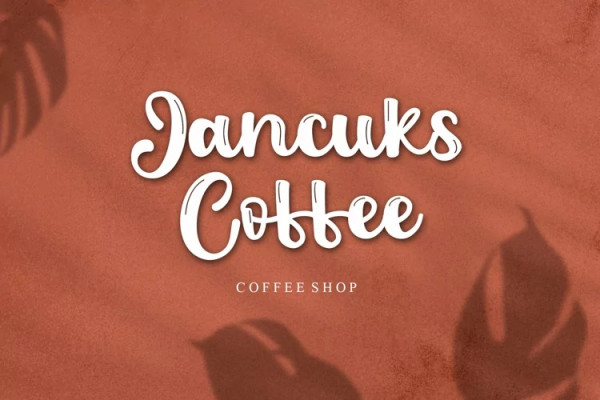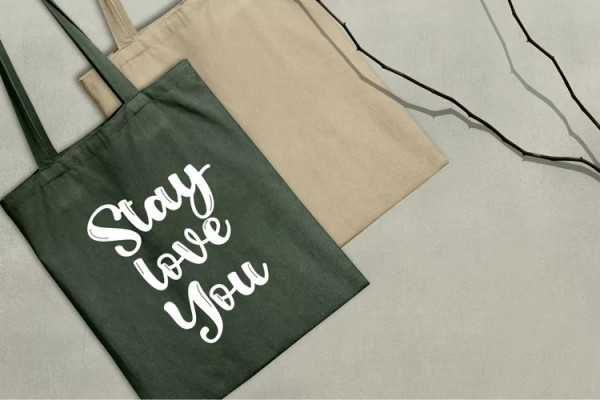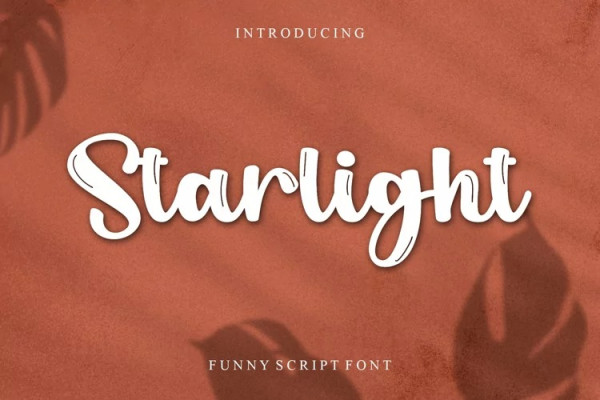
Starlight Script Typeface
Starlight Script Typeface, is a romantic and graceful calligraphy typeface. It can be used for various purposes such as logos, wedding invitations, headings, t-shirts, letterhead, signage, labels, news, posters, badges and so much more.